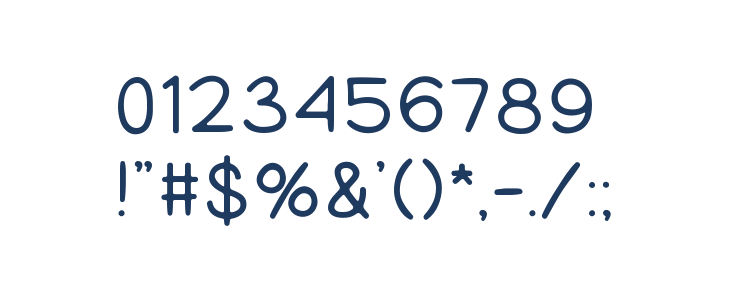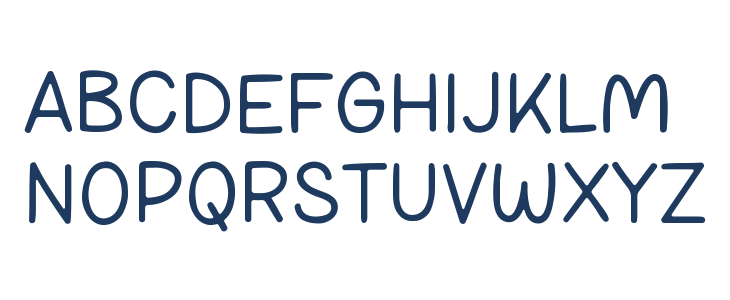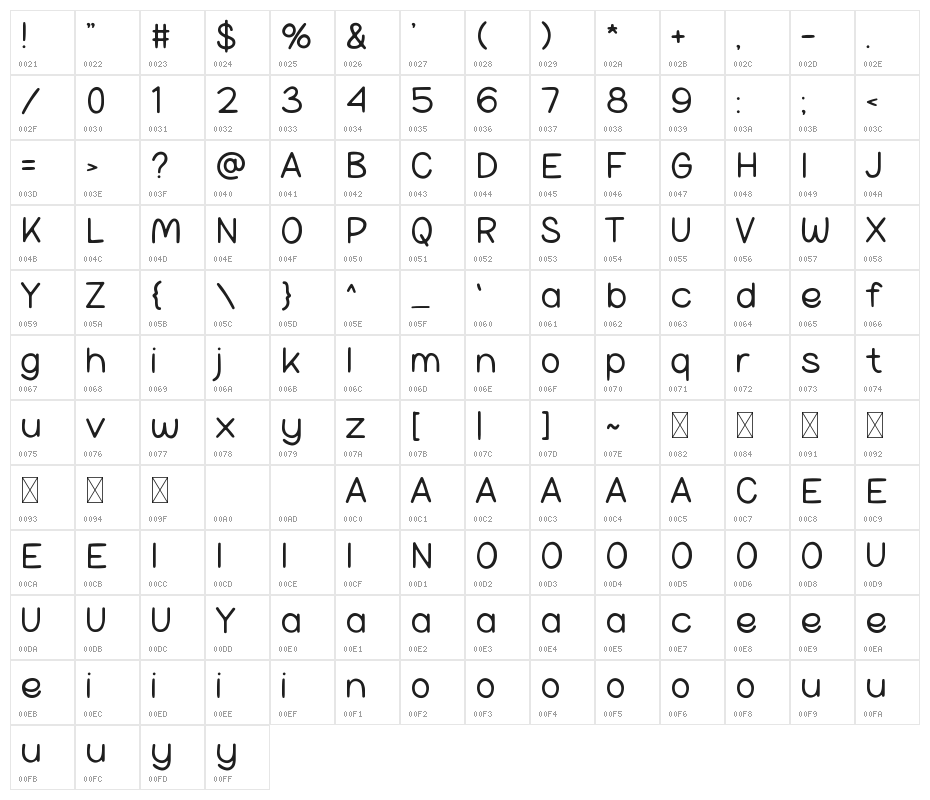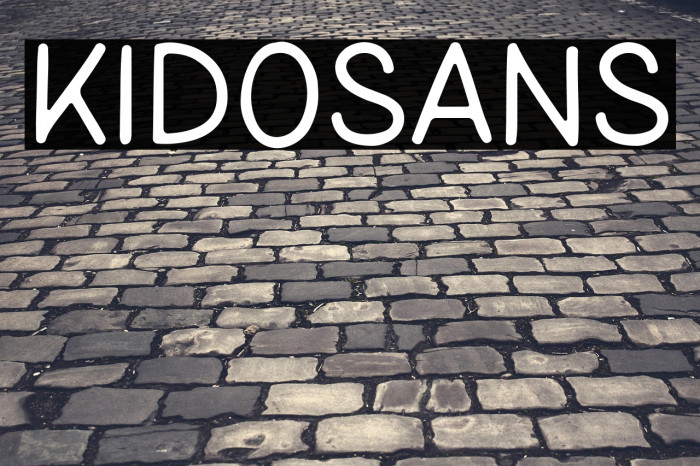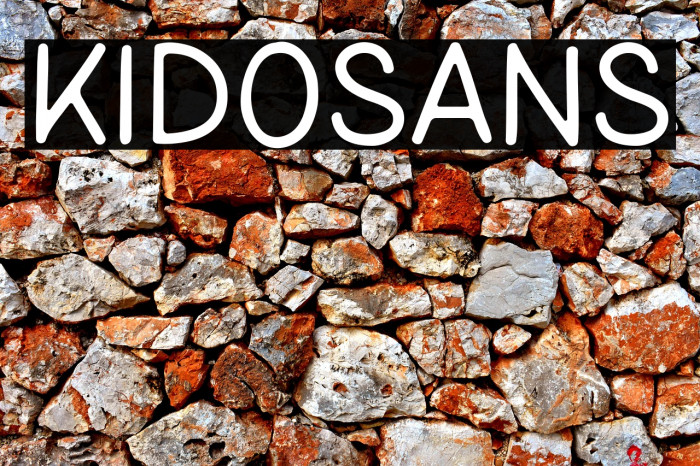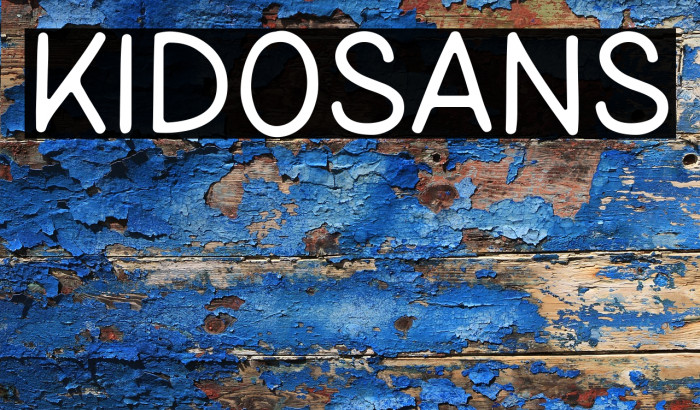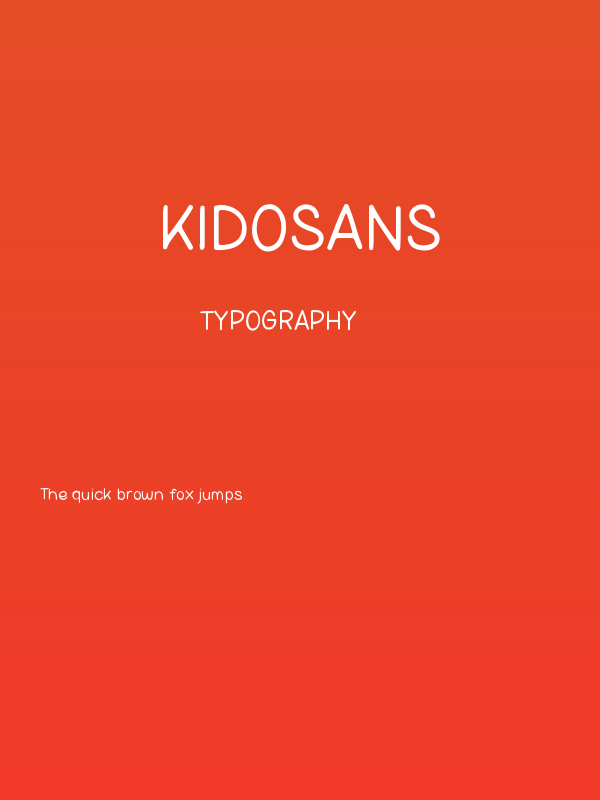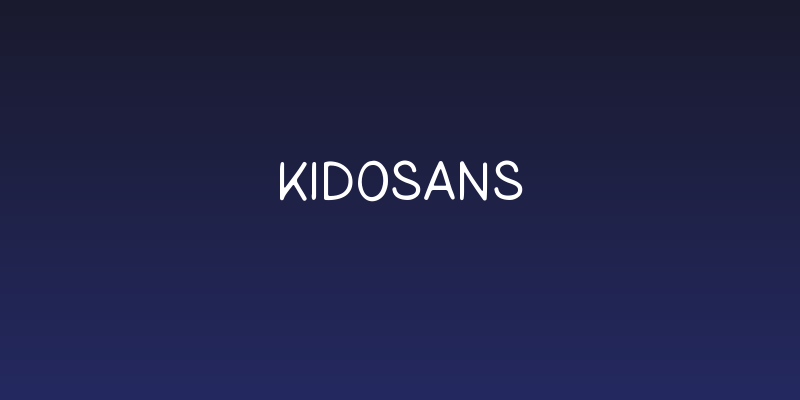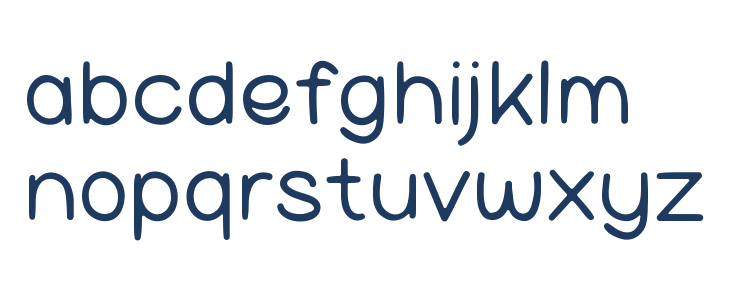
KIDOSANS Font
KIDOSANS Description
A playful, rounded sans-serif font with uniform stroke width, friendly curves, and open letterforms, giving it a childlike and approachable appearance.
| Overall Style | Playful, Informal, Modern |
| Use Case | ChildrenΓ’β¬β’s content, Branding, Posters, Educational materials |
| Proposed Projects | ChildrenΓ’β¬β’s books, educational materials, toy packaging, playful branding, posters. |